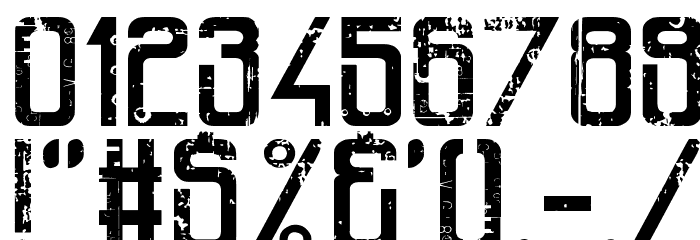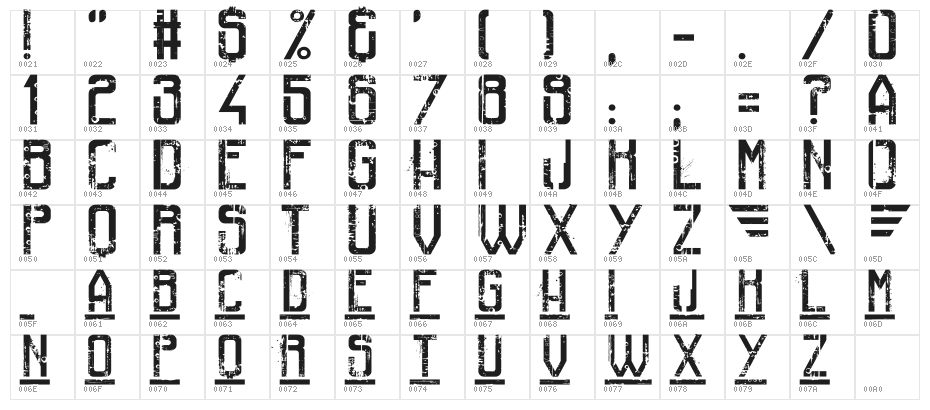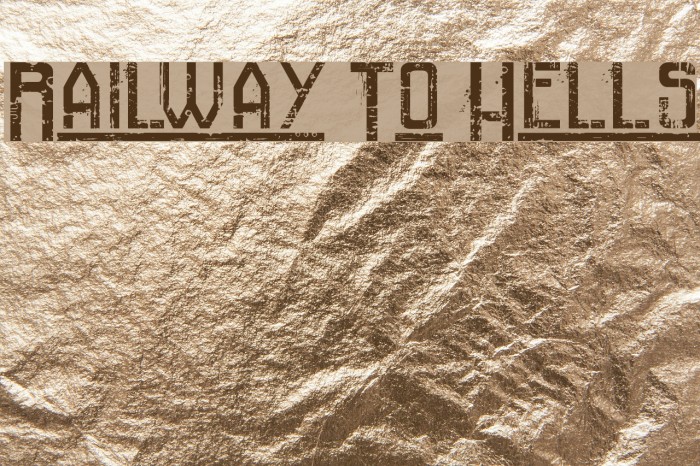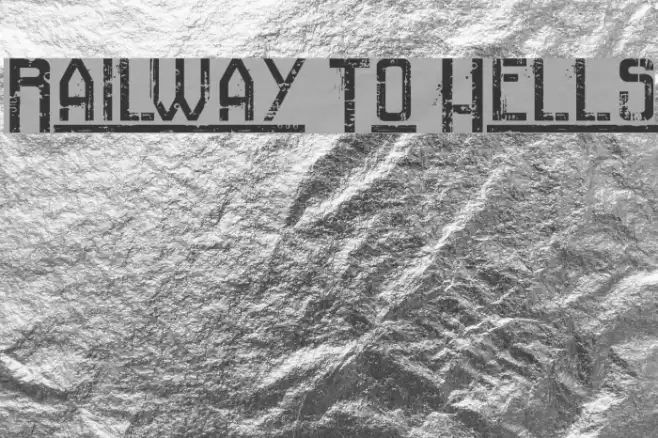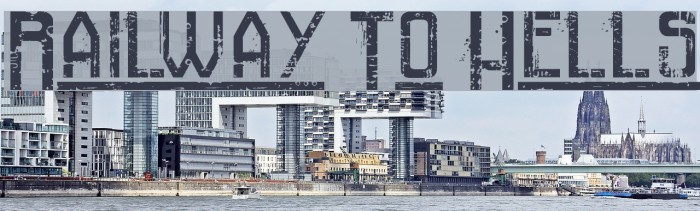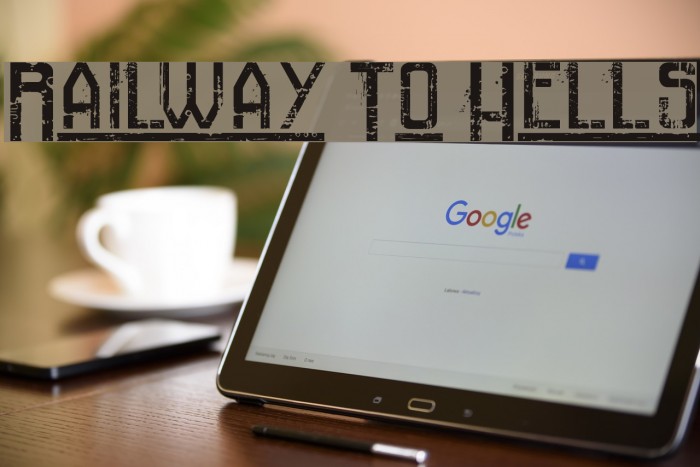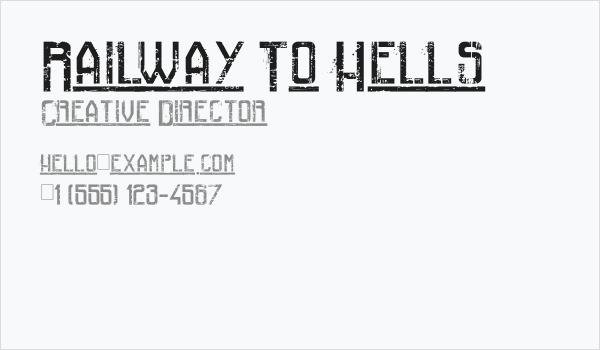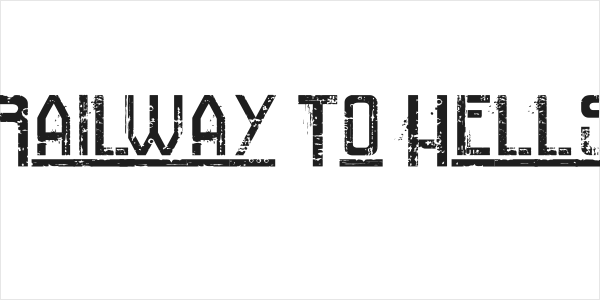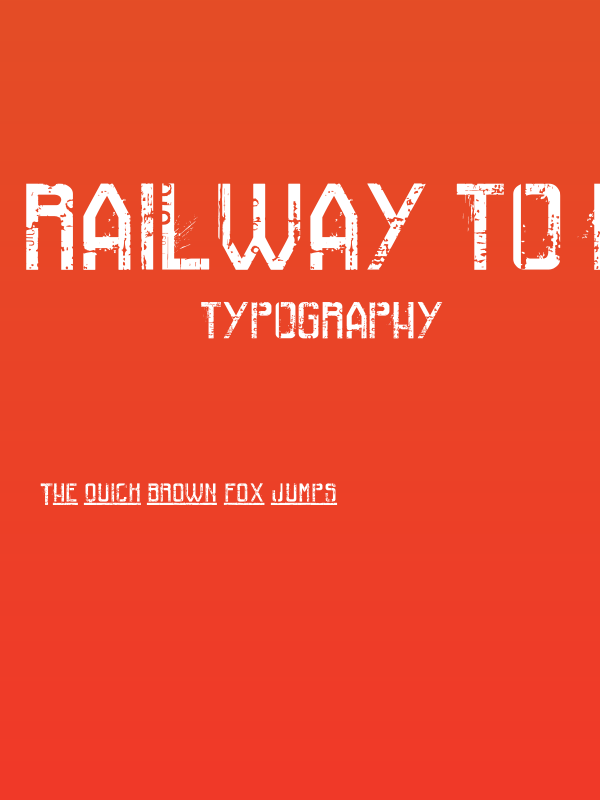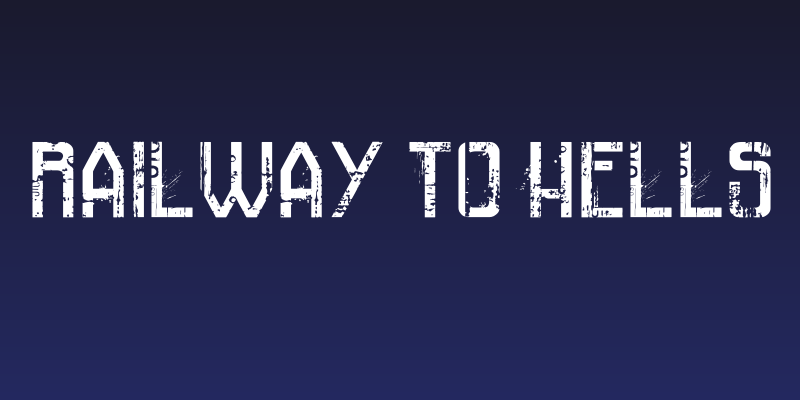
Railway To Hells Font
Railway To Hells Description
This font features a rugged, distressed appearance, reminiscent of industrial or grunge styles. The characters are bold and uppercase, with a weathered texture that gives them a worn, vintage look. The edges are slightly rough, adding to the overall gritty aesthetic. The numbers and special characters follow the same design, ensuring consistency across all glyphs. This font is ideal for projects that require a bold statement with a touch of edginess and character.
| Overall Style | Vintage, Industrial, Grunge |
| Proposed Projects | Perfect for album covers, posters, branding for edgy or alternative products, and any design needing a strong, vintage-industrial feel. |